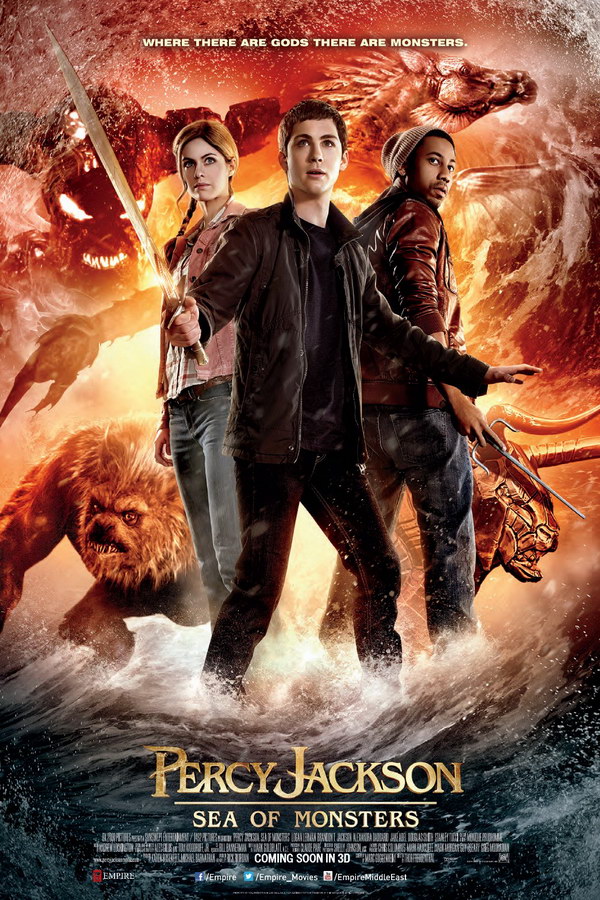
Sea of Monsters Font
AdventurePercy Jackson: Sea of Monsters is a 2013 adventure fantasy film based on the second novel in the "Percy Jackson and the Olympians" series by Rick Riordan. The film follows Percy and his friends as they embark on a quest to retrieve the Golden Fleece and save their home, Camp Half-Blood.
ITC Benguiat is likely the font utilized for the movie title "Percy Jackson Sea of Monsters." This decorative serif typeface was created by Ed Benguiat and made available by the International Typeface Corporation back in 1978.